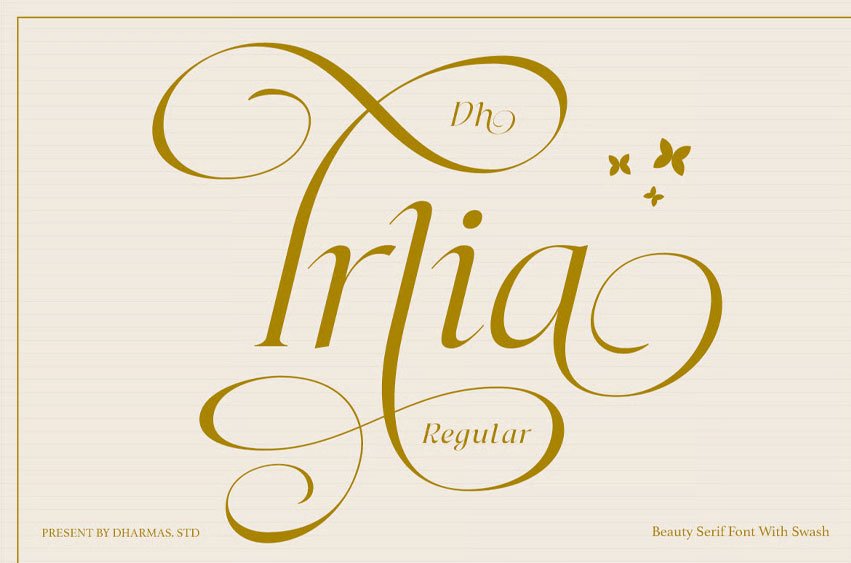
Dh Irlia Regular Font Regular is a luxury display serif font that combines refined swashes, graceful curves, and timeless sophistication. Perfect for wedding stationery and upscale promotions, this weight strikes the perfect balance between elegance and readability. Its stylish forms bring a sense of exclusivity and refinement to any project.
This version includes only the Regular style, showcasing the core identity of the Irlia family with its luxurious aesthetic.
- 1 Weight: Regular
- 105+ Swash Alternates
- Letters, numbers, symbols, punctuation, special alternates